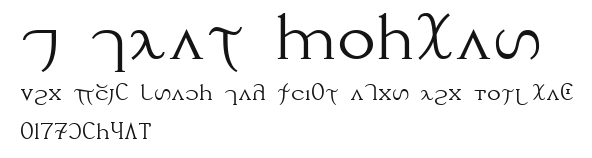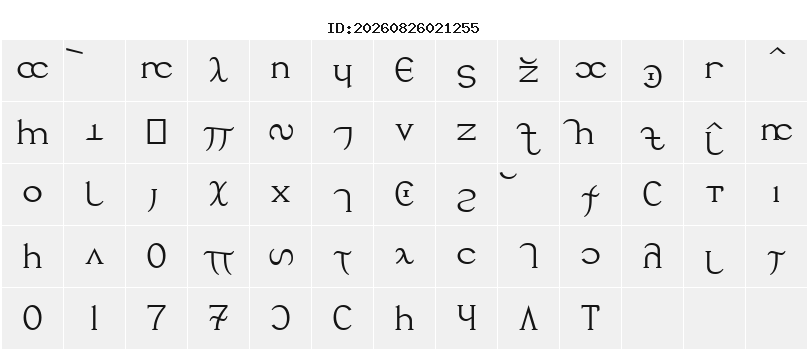
Sムftos Nandor Preview
• Designer: Joseph Spicer
• Description: Lower Geldorian Sムftos
About Sムftos Nandor.ttf
Sムftos Nandor.ttf is a modern, elegant sans-serif font designed for ultimate readability and visual harmony. Perfect for branding, headlines, web design, and print materials.